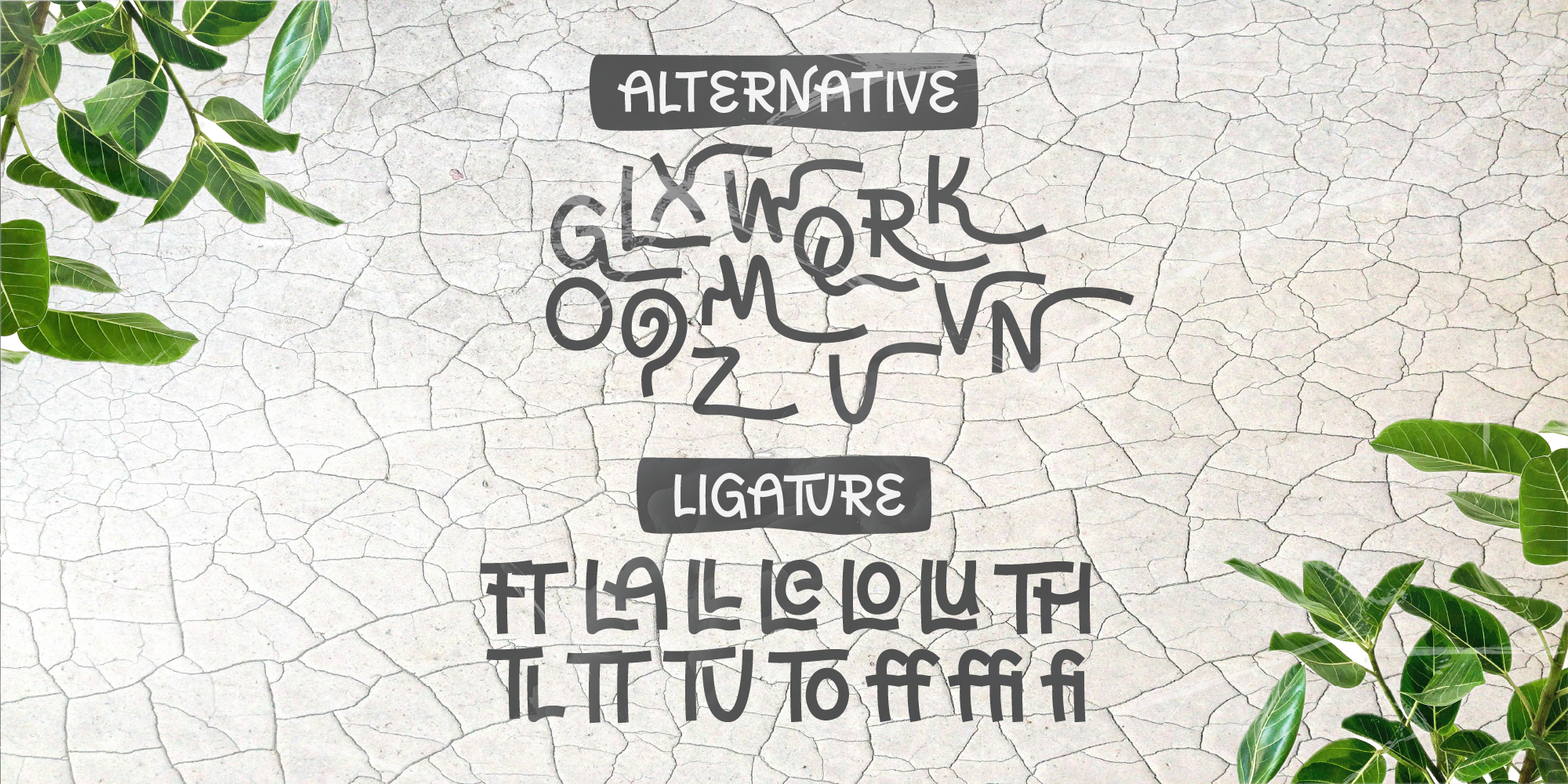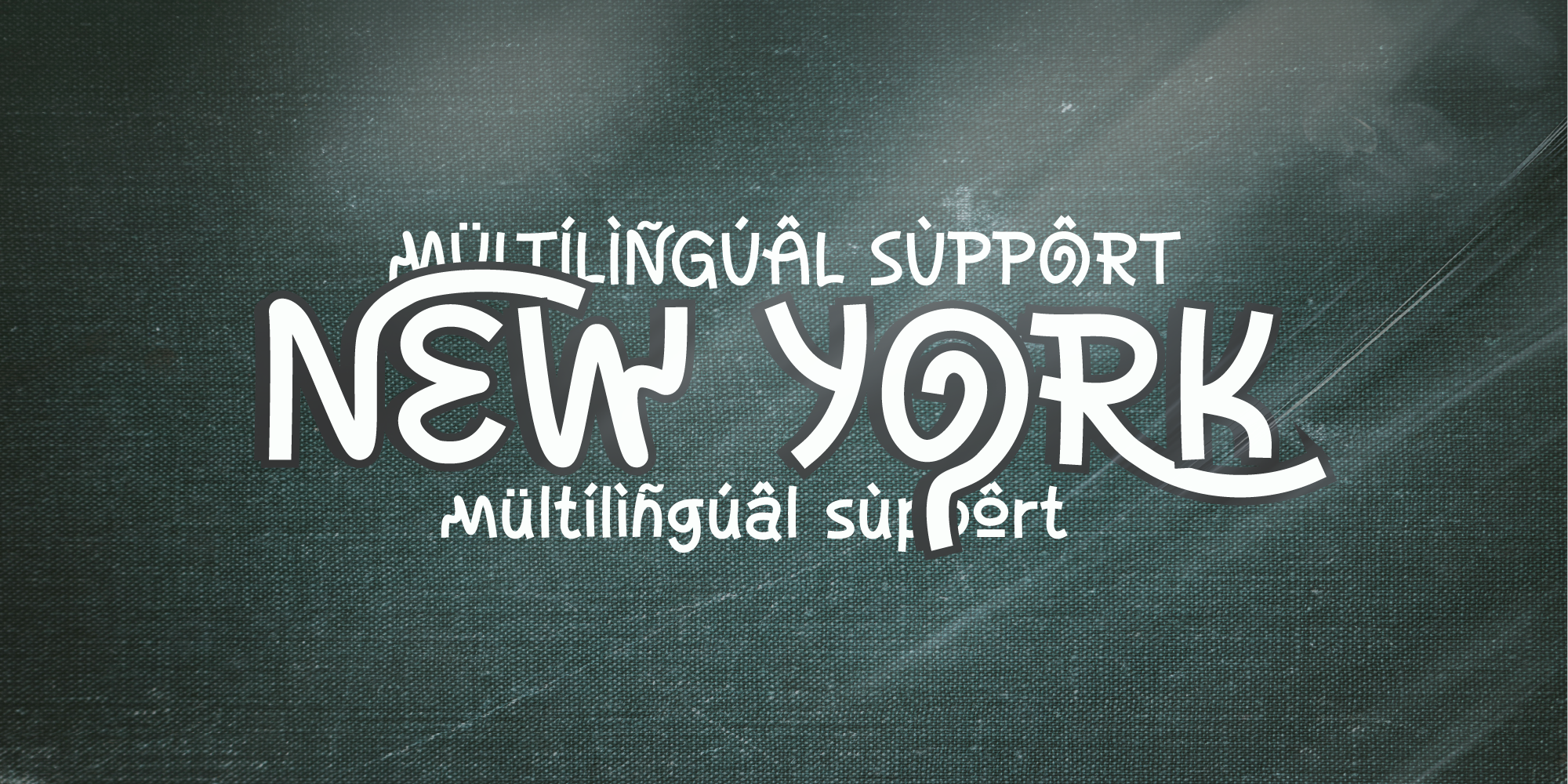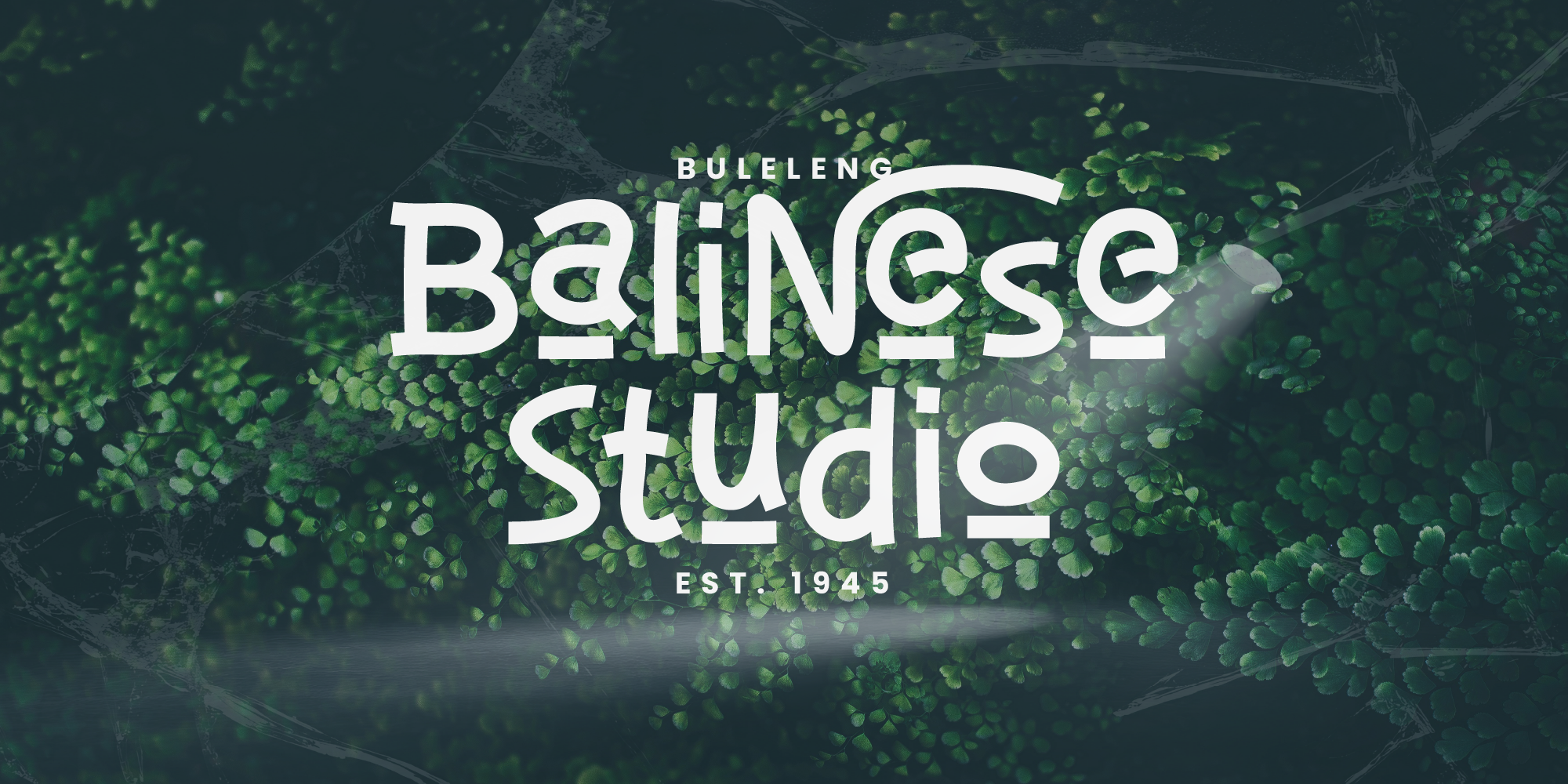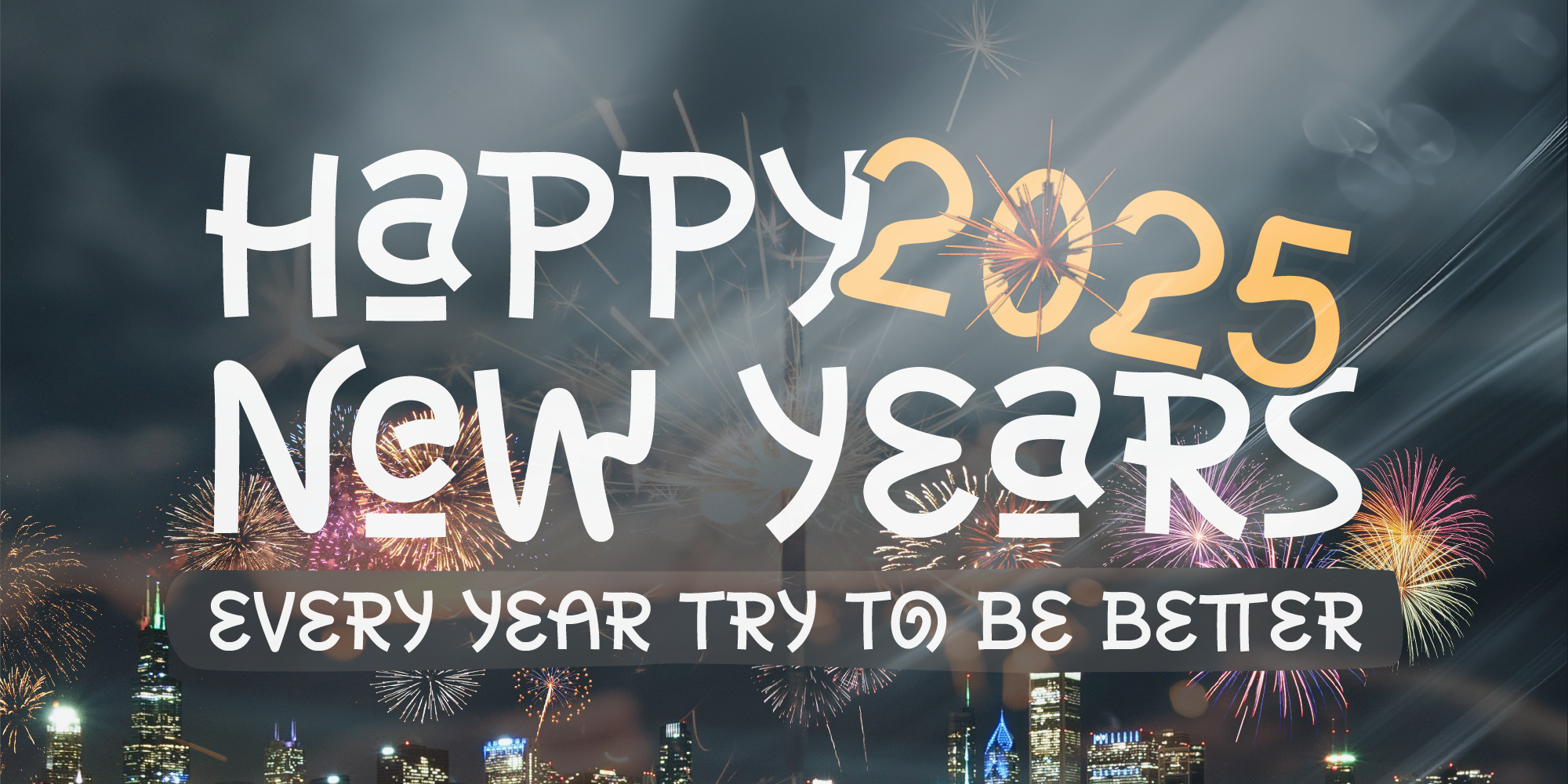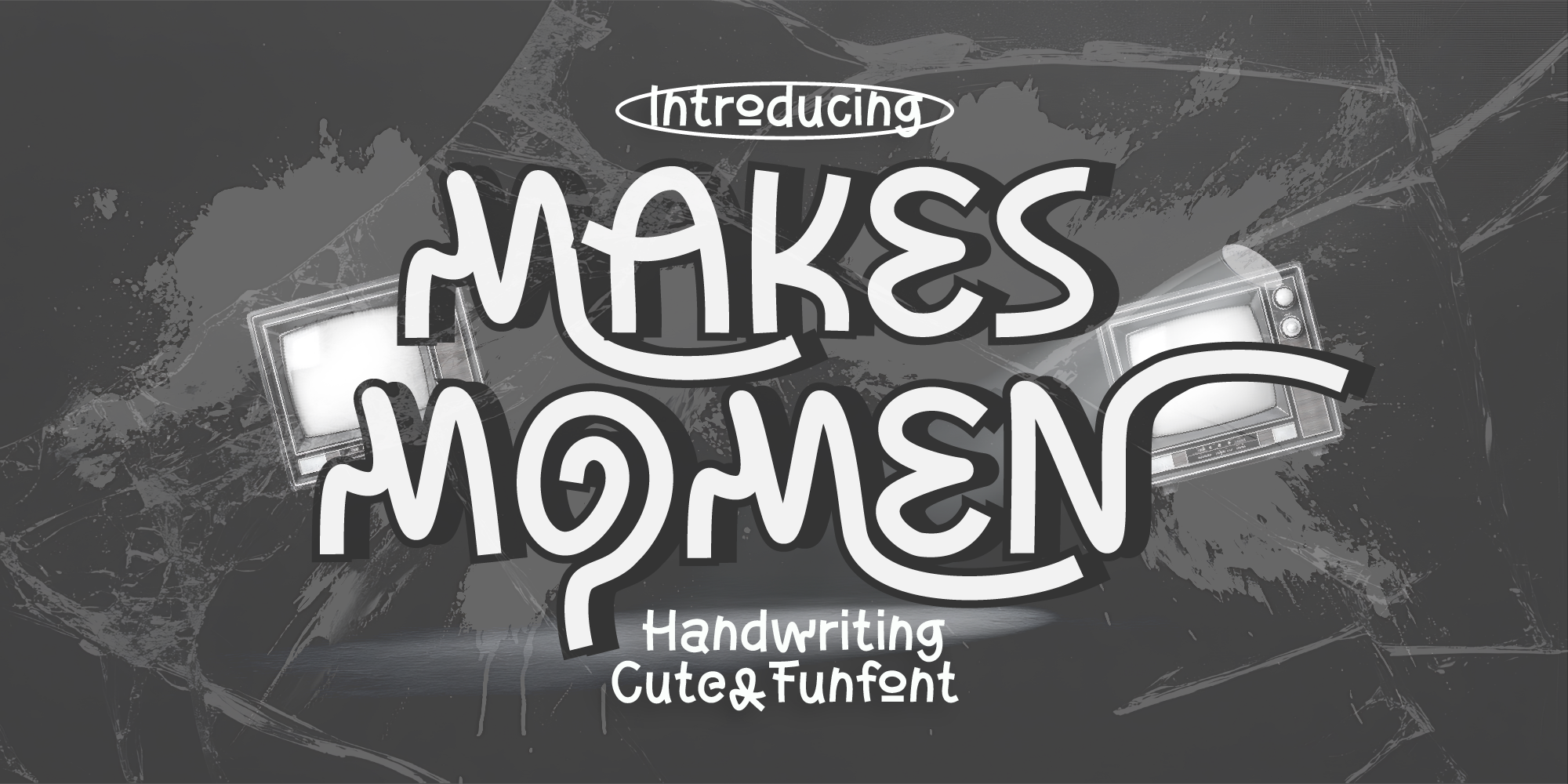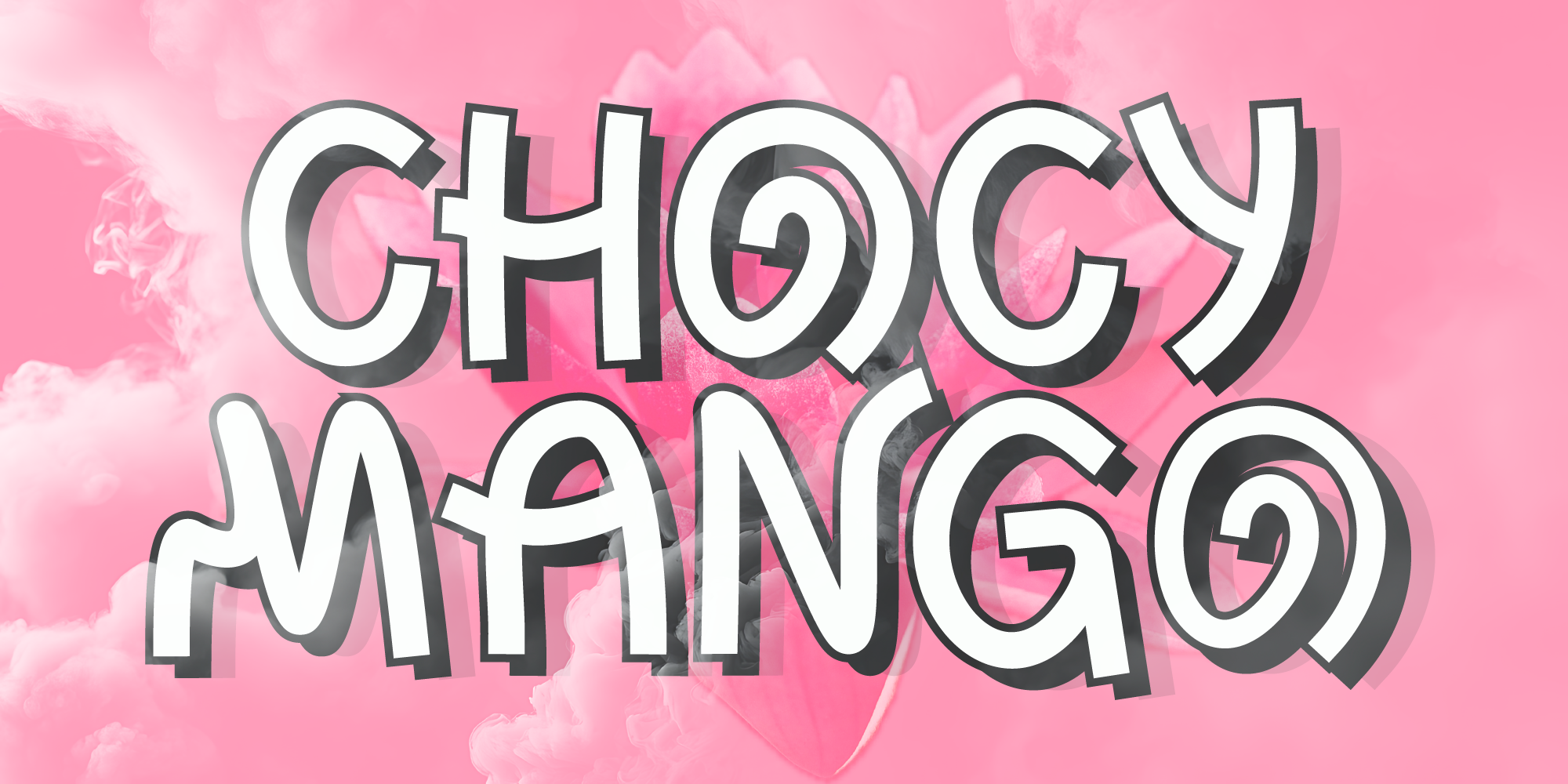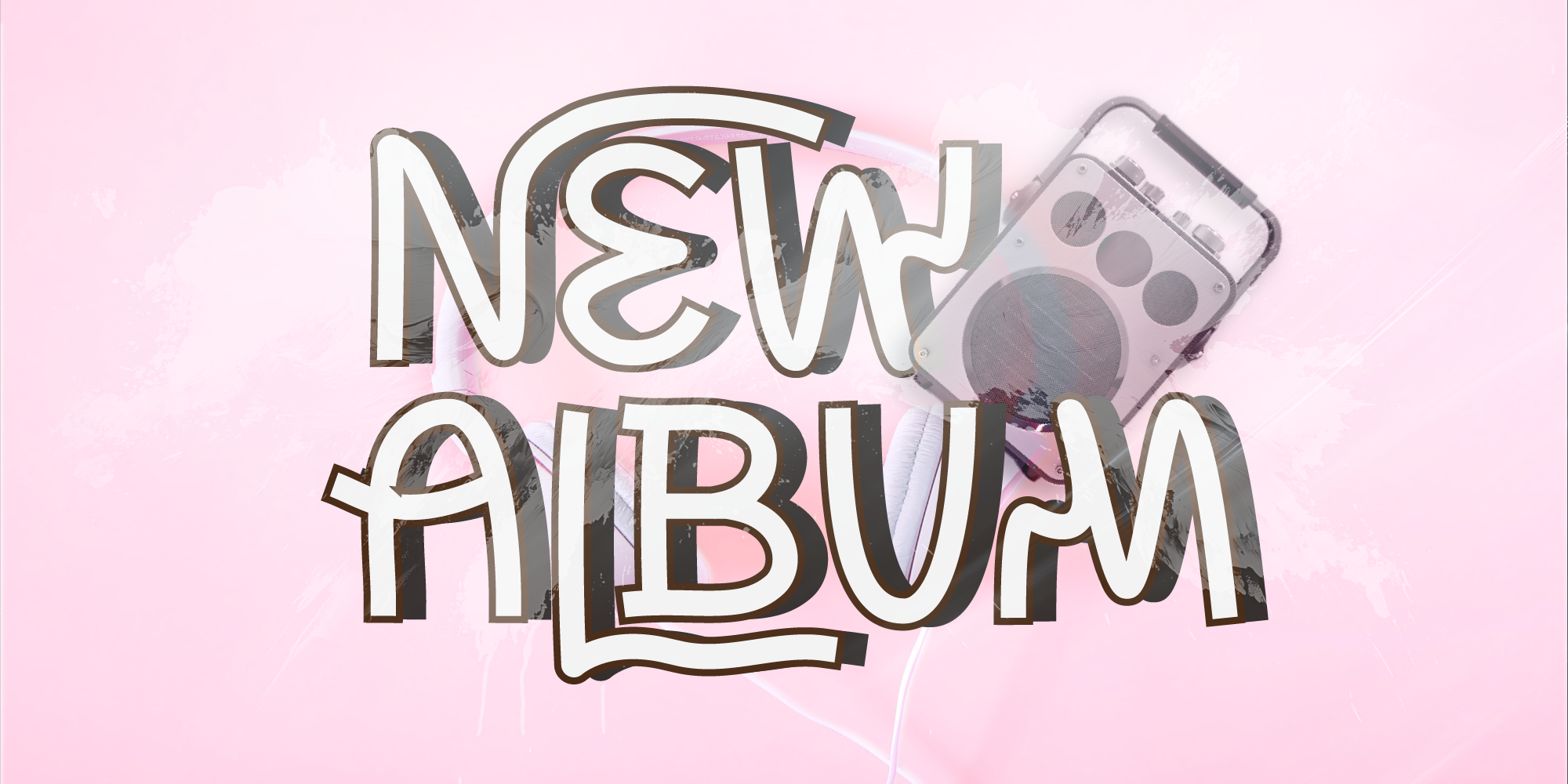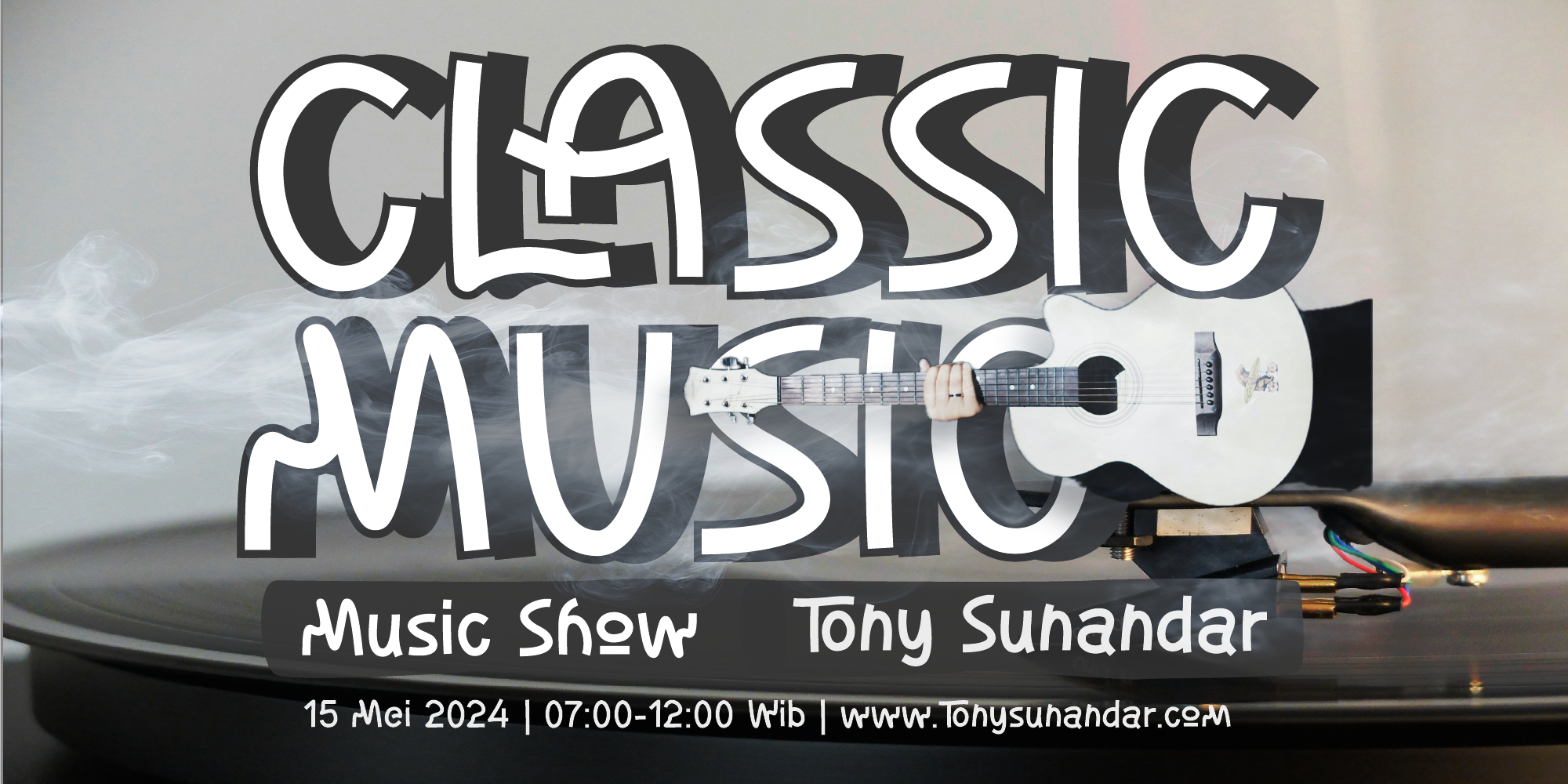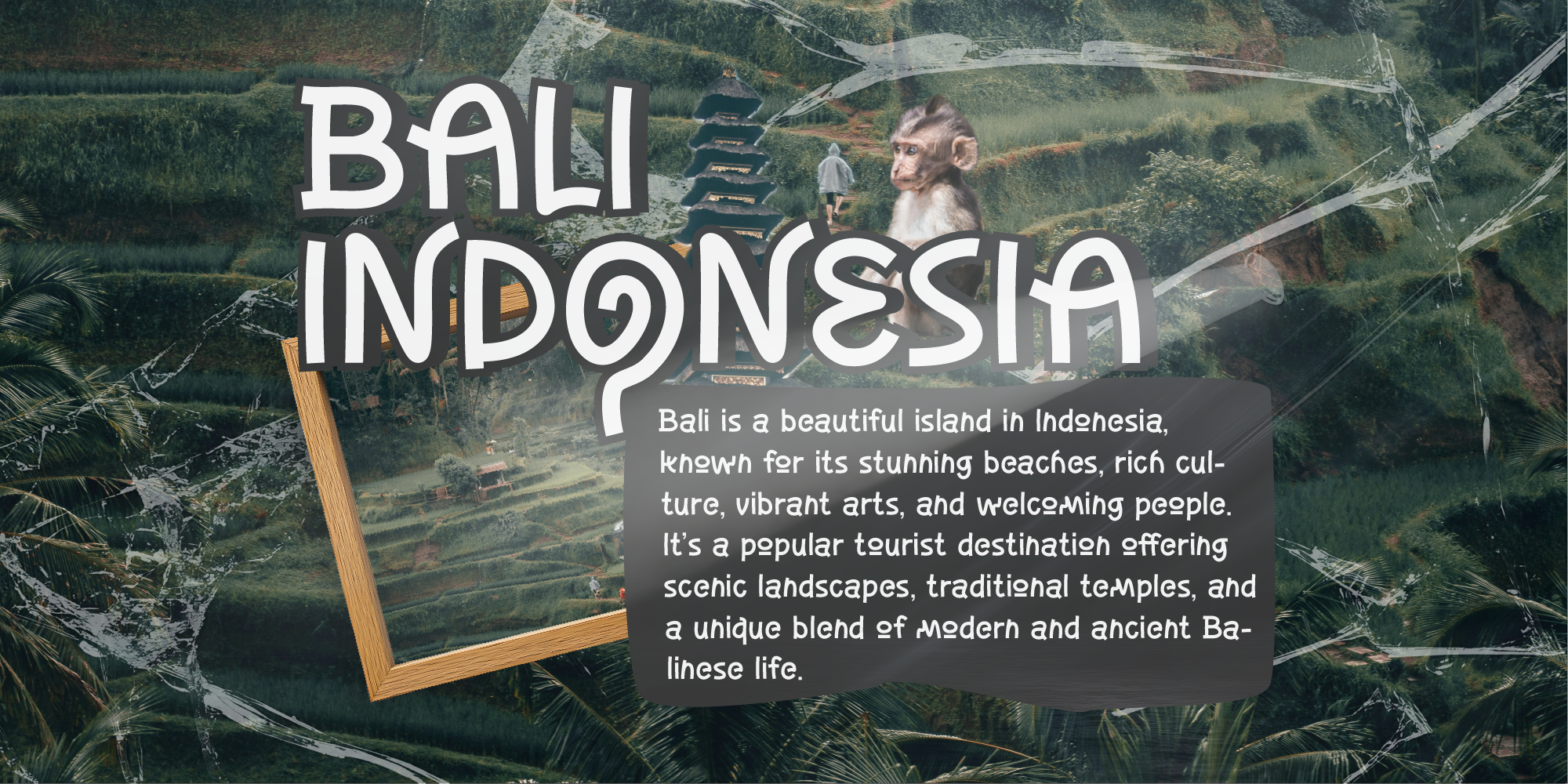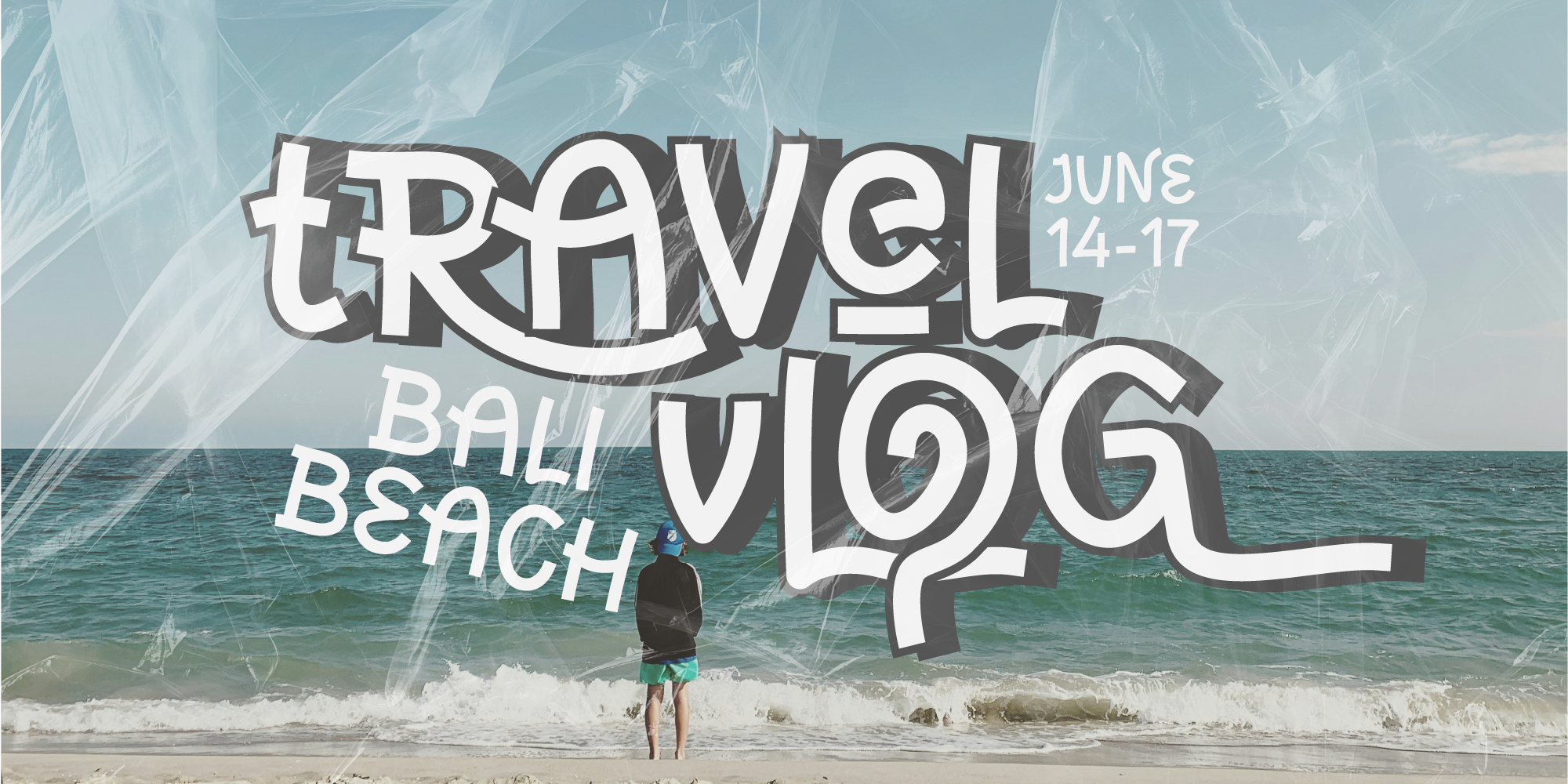
Makes Momen
Introducing MAKES MOMEN – a playful and charming handwritten-style font that brings joy and personality to any project. With its bold, thick strokes and whimsical character, this font adds a delightful, fun-loving vibe that instantly stands out.
Featuring unique ligatures and alternates, MAKES MOMEN offers a personalized and creative feel, perfect for casual, cheerful designs like invitations, quotes, branding, and more. It also supports multilingual characters, making it a versatile choice for designers around the world.
Makes Momen – Handwritten Playful Font